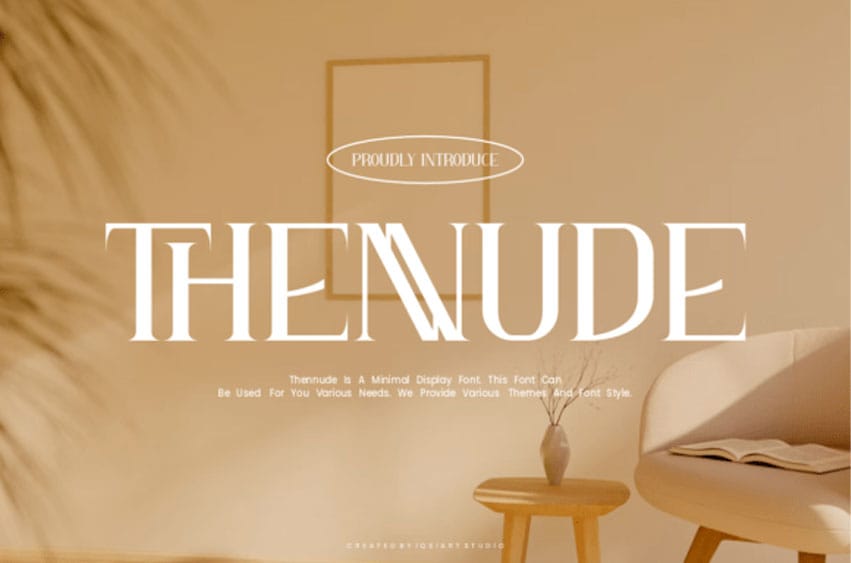
Thennude Font is a sleek and minimal display font with a modern elegance. Its clean lines and bold curves make it ideal for high-end branding, editorial design, fashion lookbooks, and upscale packaging. The striking “N” treatment adds a unique, stylish flair to the overall composition.
With its minimalist aesthetic, Thenude fits seamlessly into both digital and print designs. Whether you’re creating a luxury logo, website header, or magazine spread, this font delivers sophistication with a contemporary edge.